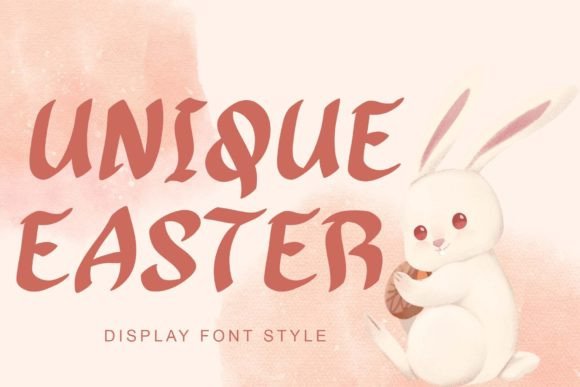
Discover the Unique Easter Font: Elevate Your Designs with Elegance
The Unique Easter Font is a stunning addition to the world of typography, offering a fresh and sophisticated look for various design projects. This elegant display font is designed to make your creations stand out, whether you’re working on posters, banners, logos, branding materials, stickers, or digital projects like SVG, KDP, Procreate, and sublimation designs. With its comprehensive set of characters, including uppercase letters, lowercase letters, numerals, punctuation, and multilingual support, Unique Easter is versatile and ready to enhance your visual communications.
Key Features of Unique Easter Font
- Comprehensive Character Set: Includes uppercase letters, lowercase letters, numerals, punctuation, and multilingual support, ensuring versatility for a wide range of projects.
- Elegant Display Font: Unique Easter boasts an elegant and unique style that adds a touch of sophistication to any design.
- Multilingual Support: Cater to a global audience with a font that supports multiple languages, making it perfect for international brands and projects.
- High-Quality Design: Crafted with precision, Unique Easter offers clean lines and beautiful curves, making it suitable for high-resolution designs.
- Versatile Applications: Ideal for posters, banners, logos, branding, stickers, SVG, KDP, Procreate, sublimation designs, comics, book titles, invitations, and more.
Exploring Design Applications for Unique Easter Font
The Unique Easter Font’s versatility shines through its wide range of applications. Here are some of the key areas where this font can make a significant impact:
Posters and Banners
Make a bold statement with Unique Easter in your posters and banners. Its elegant and eye-catching design ensures that your message grabs attention and leaves a lasting impression.
Logos and Branding
Establish a strong brand identity with Unique Easter. Its unique style can help your brand stand out in a crowded market, conveying elegance and sophistication.
Stickers and Sublimation Designs
Add a personal touch to your stickers and sublimation designs with Unique Easter. Its high-quality design ensures that your products look professional and appealing.
Digital Designs (SVG, KDP, Procreate)
Enhance your digital creations with Unique Easter. Whether you’re working on SVG files for cutting machines, KDP projects for print-on-demand, or Procreate designs for digital art, this font integrates seamlessly, offering crisp and clear text.
Comics and Book Titles
Give your book titles or comic book covers a unique edge with Unique Easter. Its distinctive style can help attract readers and set your publication apart.
Invitations and Events
Create memorable invitations for weddings, parties, and corporate events with Unique Easter. Its elegant appearance ensures that your event stands out and conveys the right tone.
Tips for Using Unique Easter Font Effectively
To maximize the potential of Unique Easter Font, consider the following tips:
- Pair with Complementary Fonts: Combine Unique Easter with simpler fonts for body text to create visual contrast and enhance readability.
- Experiment with Colors: While Unique Easter looks stunning in classic colors, don’t be afraid to experiment with bold and vibrant hues to match your brand or design theme.
- Adjust Size and Weight: Play with different sizes and weights of Unique Easter to create a hierarchy of information and add depth to your designs.
- Utilize Multilingual Support: Take advantage of the font’s multilingual support to connect with a diverse audience and expand your reach.
Why Choose Unique Easter Font?
In a world where design plays a crucial role in communication, Unique Easter Font stands out for several reasons:
- Unique and Elegant: Offers a fresh and sophisticated look that can elevate any design.
- Highly Versatile: Suitable for a wide range of applications, from print to digital.
- Multilingual Support: Enables you to communicate with a global audience.
- Easy to Use: Compatible with various design tools and software, making it easy to integrate into your workflow.
Unique Easter Font is a powerful tool for designers and creators looking to add an elegant and unique touch to their projects. With its comprehensive character set, multilingual support, and versatile design, it’s an excellent choice for a wide range of applications. Whether you’re working on a commercial project or a personal endeavor, Unique Easter can help you achieve your design goals and make a lasting impression.